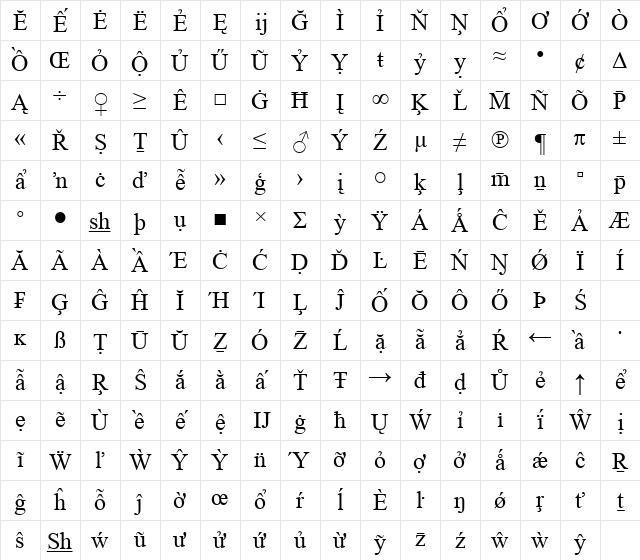
Times New Roman Special G2 Regular
Times New Roman Special G2 Family
Complete Times New Roman Special G2 Regular glyph index. Displaying only characters natively supported by Times New Roman Special G2 Regular font.
Design Context for Times New Roman Special G2
Times New Roman Special G2 is a composed and adaptable typeface that performs quietly and consistently across a wide range of design contexts.